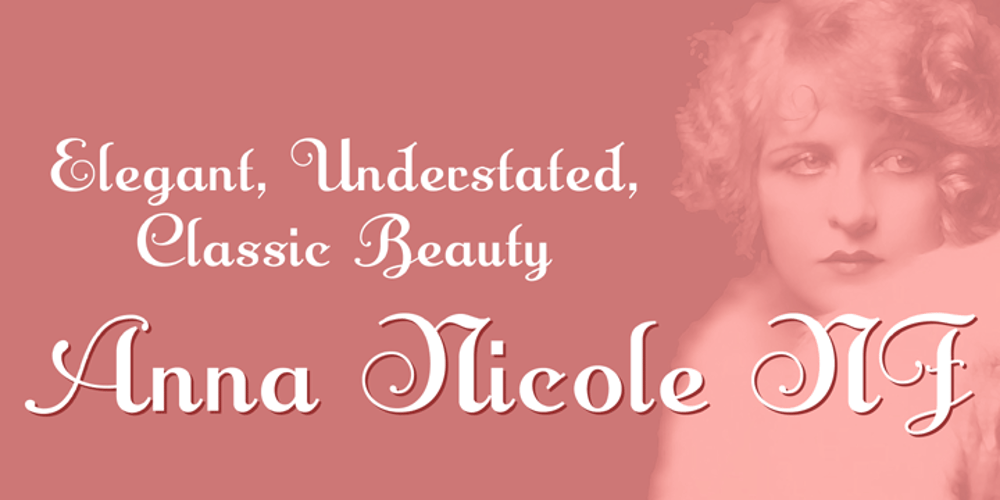
Anna Nicole NF Font Family was designed by Nick Curtis and published by Nick’s Fonts. Anna Nicole NF contains 1 styles and family package options. This statuesque semiscript is based on Mirabelle, an in-house design from the German foundry of Wagner & Schmidt, released in 1926. Round, firm and fully-packed, it’s sure to get attention anywhere it’s used. The PC Postscript, Truetype and Opentype versions contain the complete Latin language character set (Unicode 1252) plus support for Central European (Unicode 1250) languages as well.